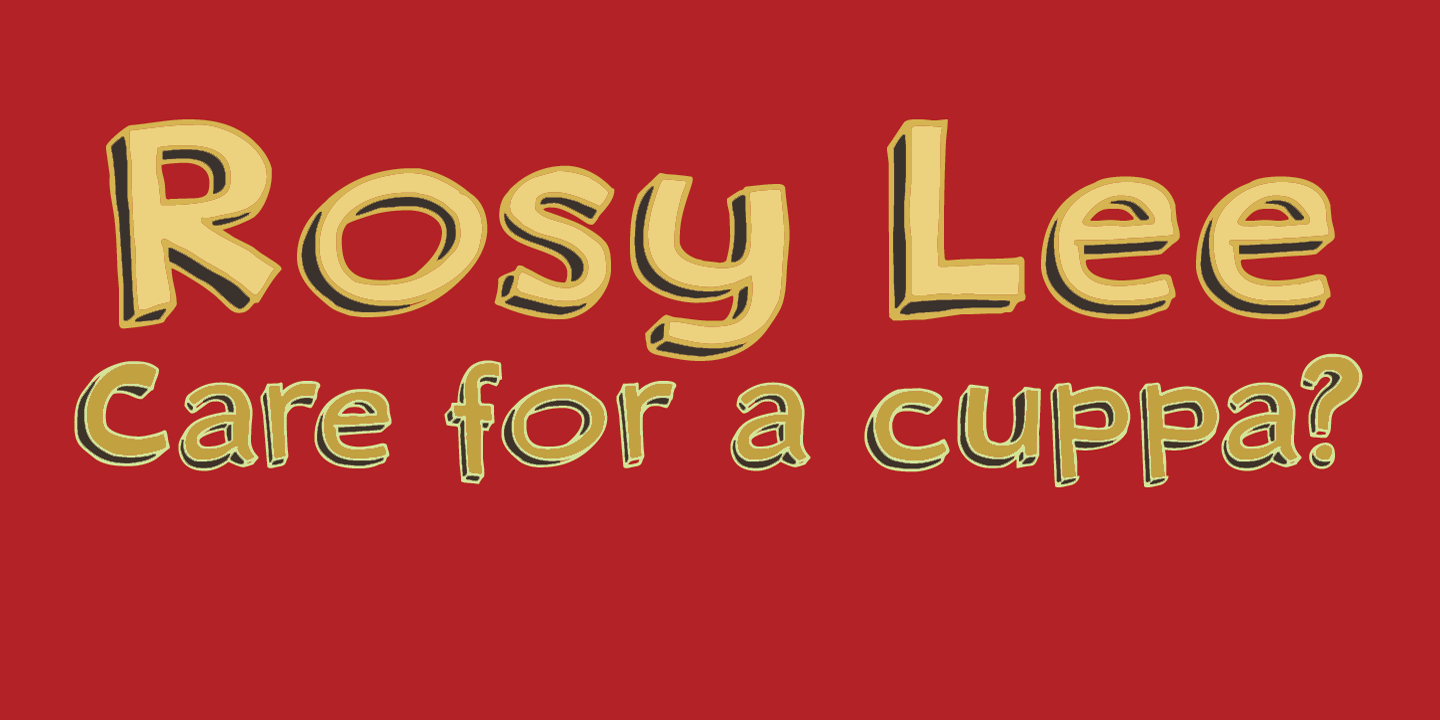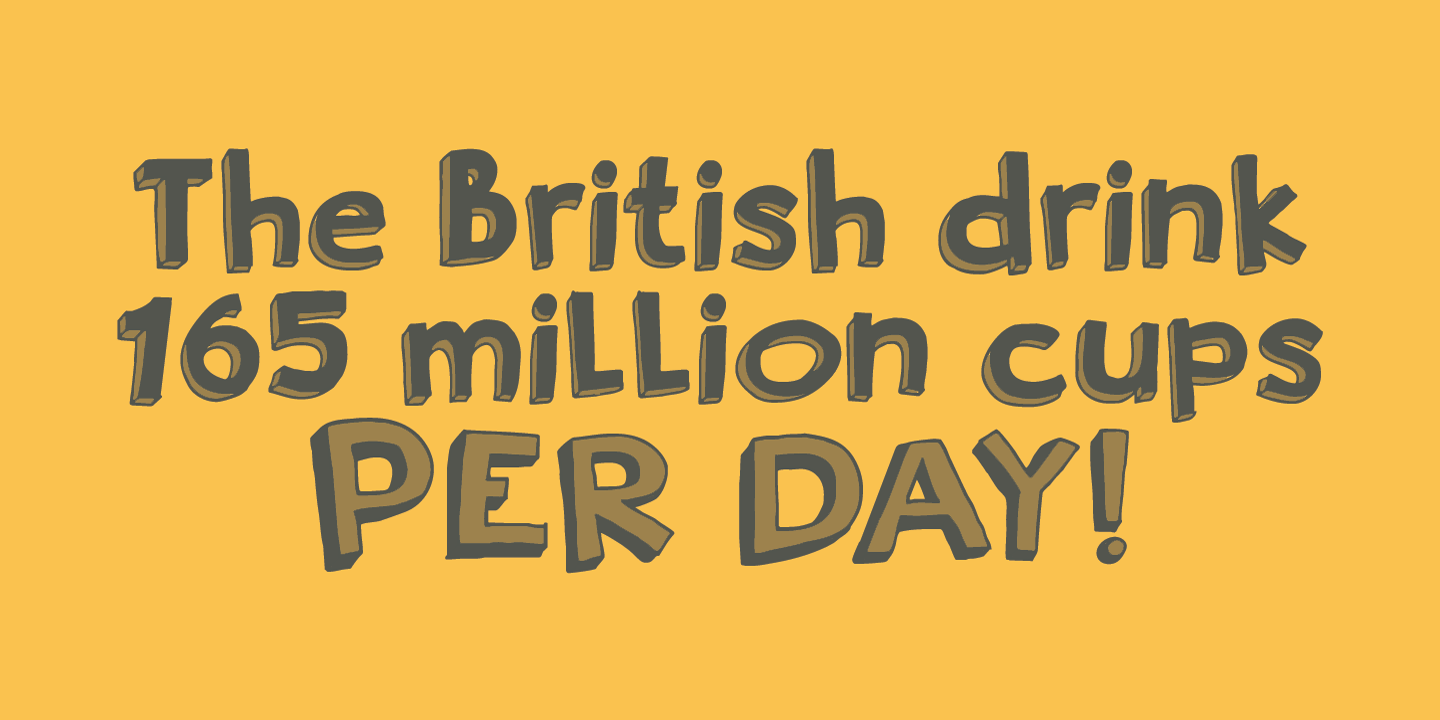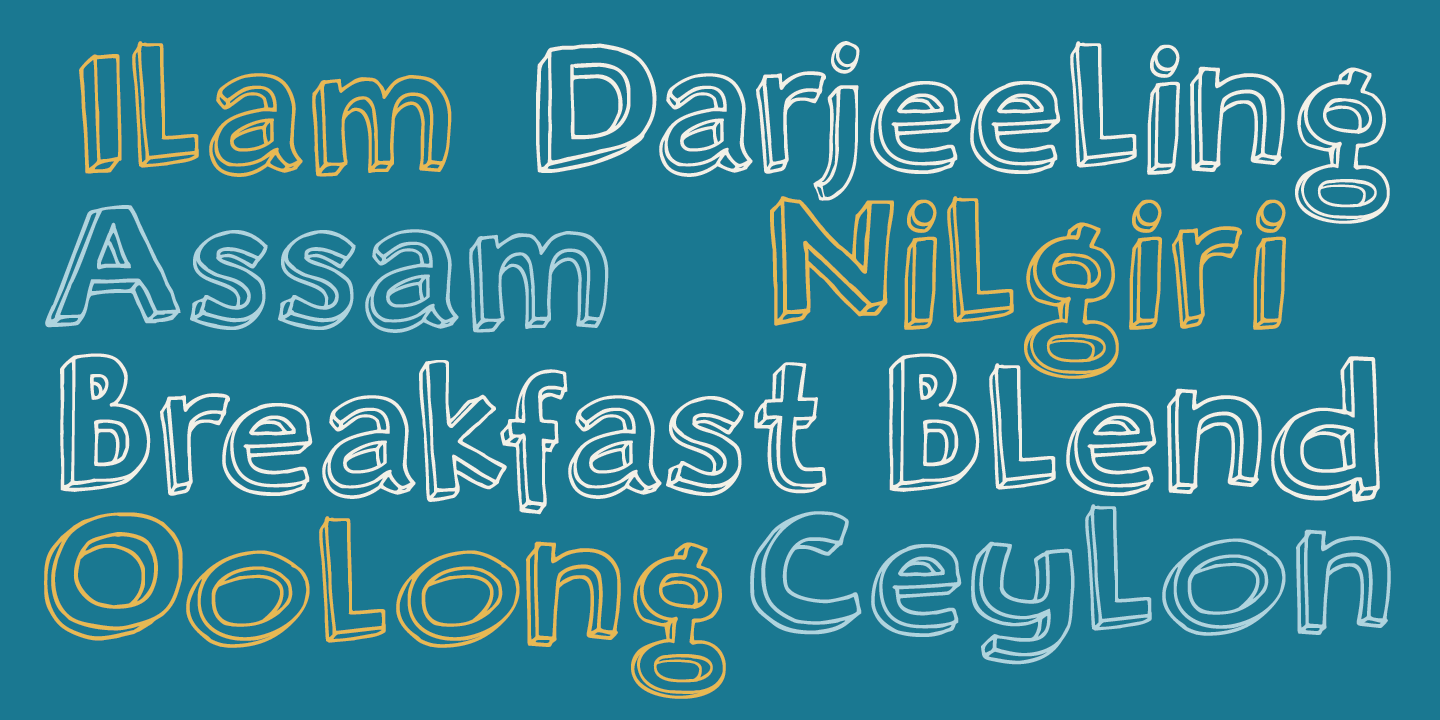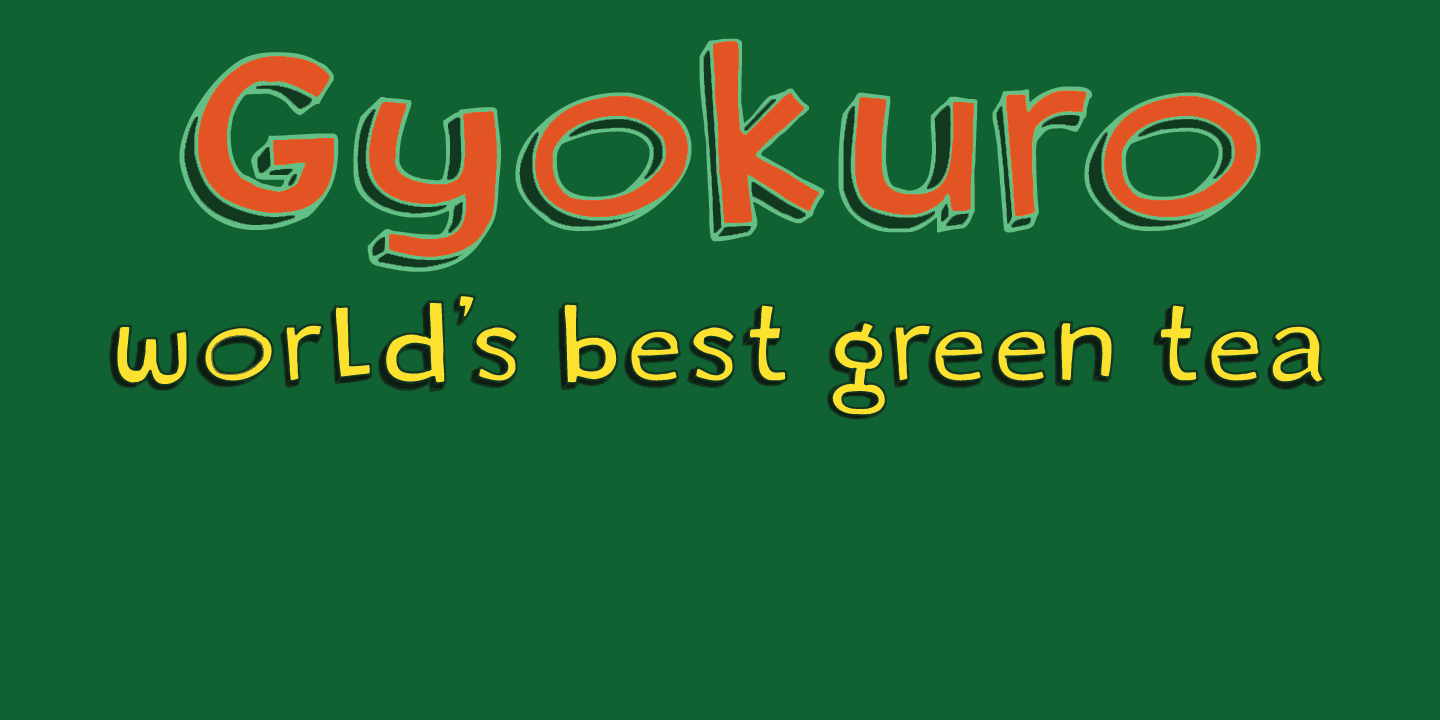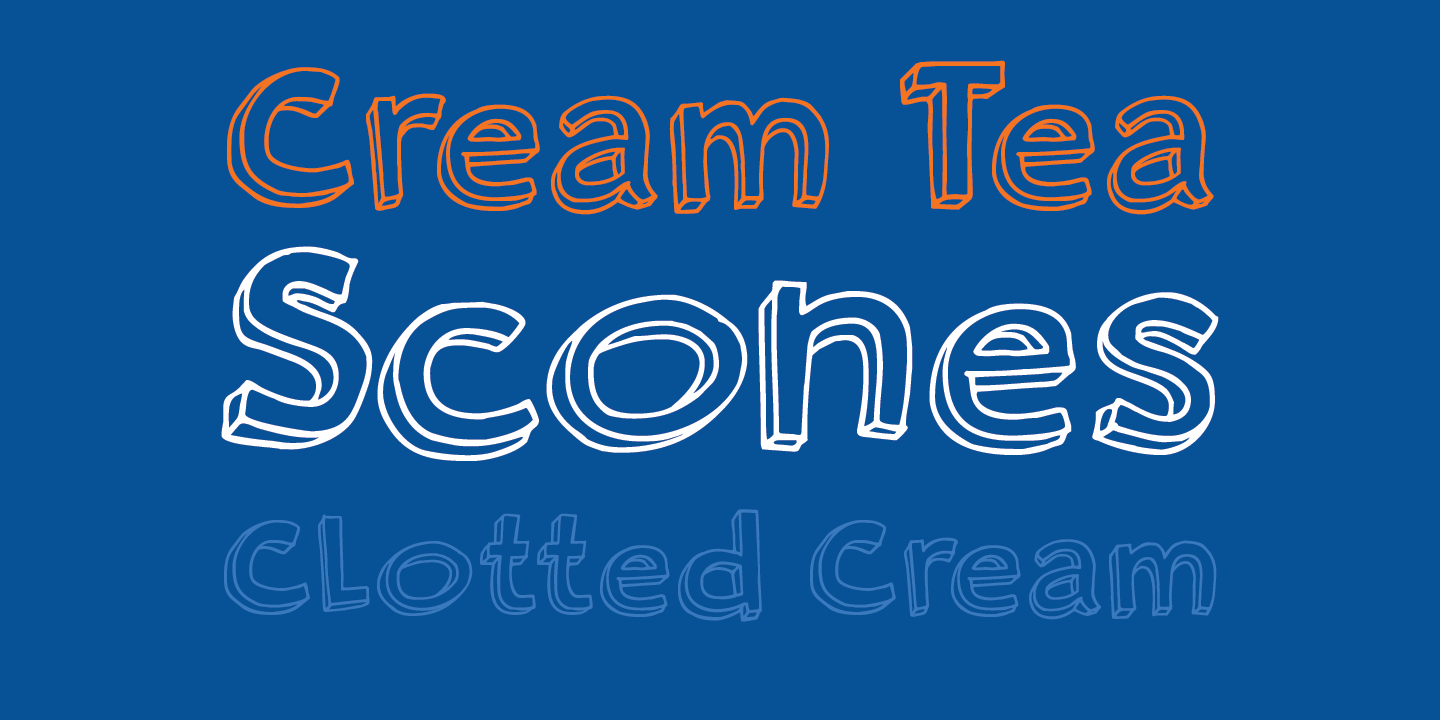
Rosy Lee
Rosy Lee is Cockney slang for a cup of tea - which I drank when it was time to come up with a name for my new font. Rosy Lee (the font) is a 3D typeface with a lot of character. Would look great on posters, packaging (maybe even tea) and book covers. Comes with all the diacritics. So... Fancy a Rosy, luv?